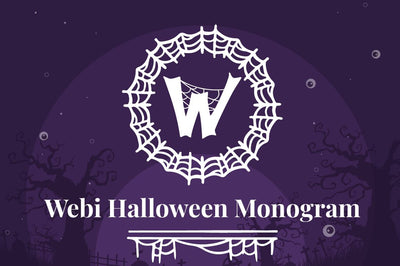
Webi Halloween Monogram
Webi Halloween Monogram is Spider web halloween monogram font, perfect for any halloween & spooky related designs for your special occasions, business designs, logos, branding, social media posts, and wedding cards.
Comes in with 2 styles.
Just simply change between uppercase and lowercase to see the different styles!
- Uppercase (A-Z)
- Lowercase (a-z)
- Number (0-9)